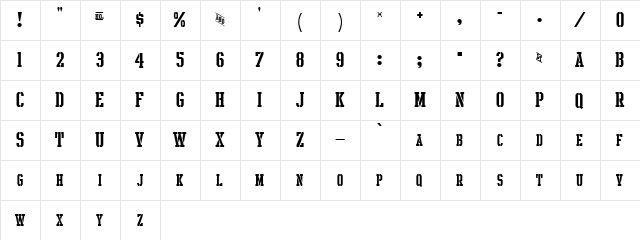
Intramural Stencil SC JL Regular
Design Context for Intramural Stencil SC JL Typeface
Intramural Stencil SC JL has the rough pragmatism of spray-painted stencil signage, adding a raw, street-level authenticity to designs.
Ideal for industrial branding, streetwear, military-adjacent aesthetics, and urban signage projects.
Pro Tip: Pair Intramural Stencil SC JL with raw, utilitarian design elements — exposed concrete textures, flat colour, and minimal ornamentation suit it well.